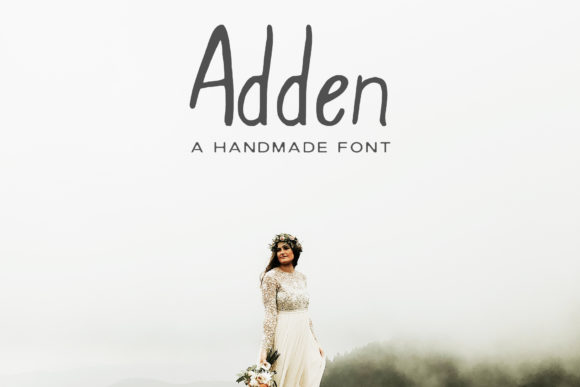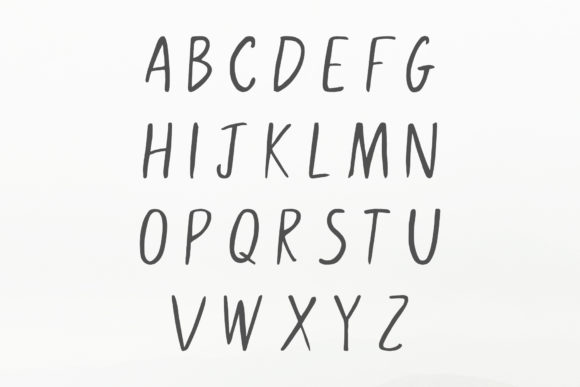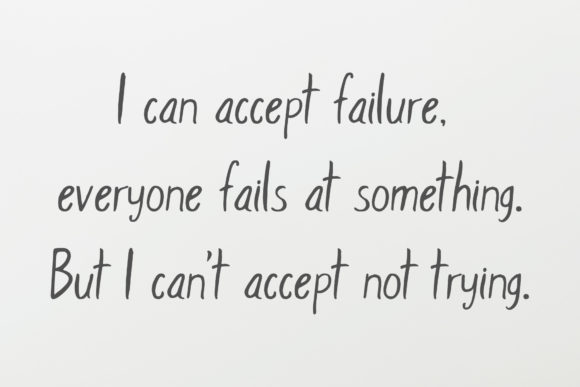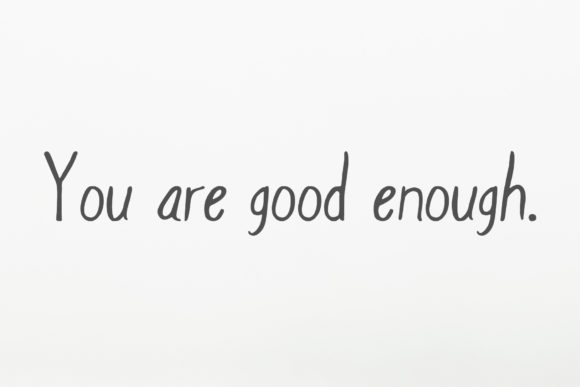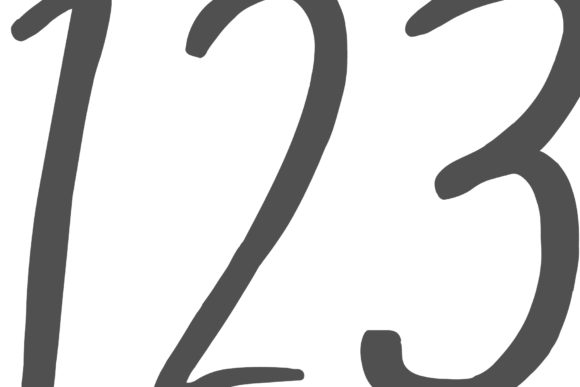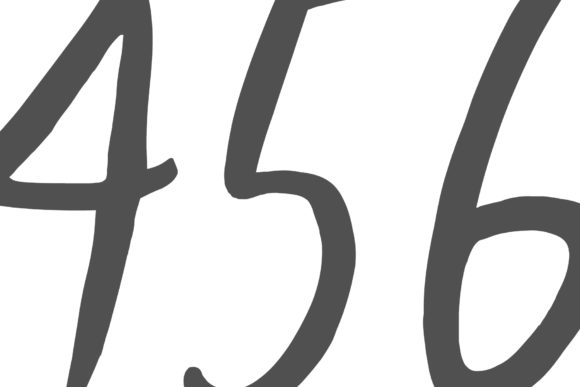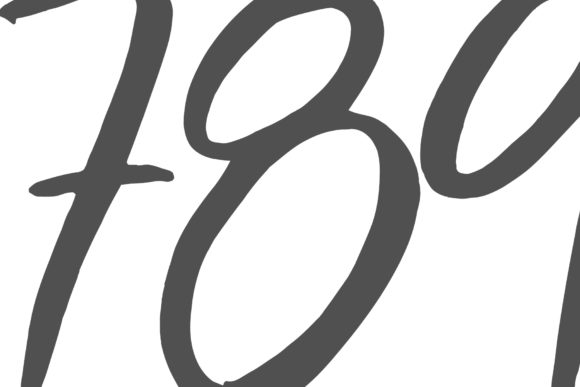
Adden Font
About Adden Font
The Adden is a modern handmade sans serif. It was written with a soft hand to produce a high quality font.
It’s striking look is perfect for greeting cards, branding materials, wedding postcard, business cards, quotes, posters, small business, book covers, stationery, marketing, magazines and more.